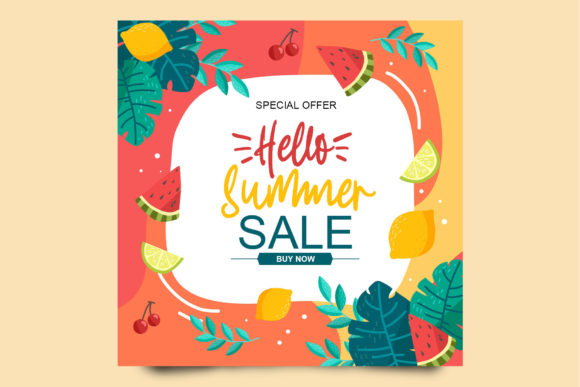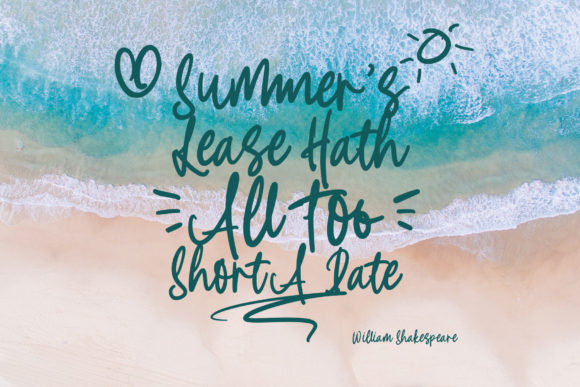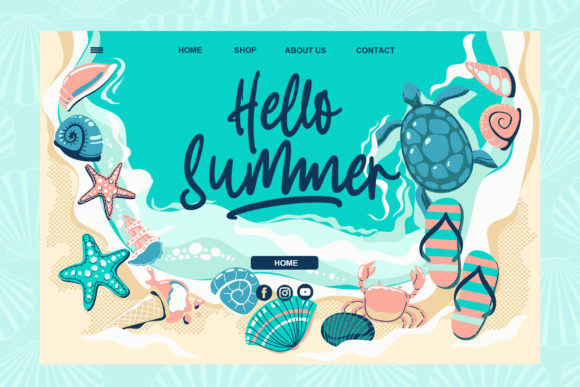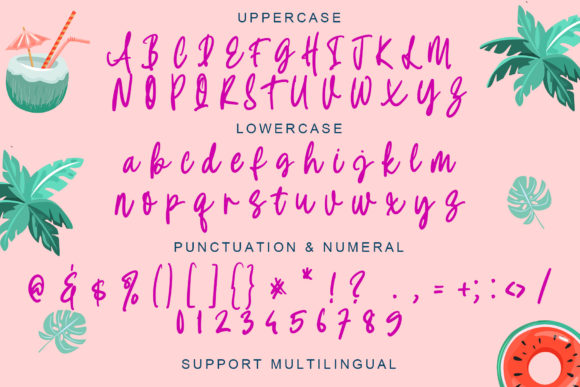
About Summer Stylish Font
Summer Stylish is a relaxed and quirky handwritten font. Fall in love with its incredibly versatile style and use it to create gorgeous wedding invitations, beautiful stationary art, eye-catching social media posts, and much more!